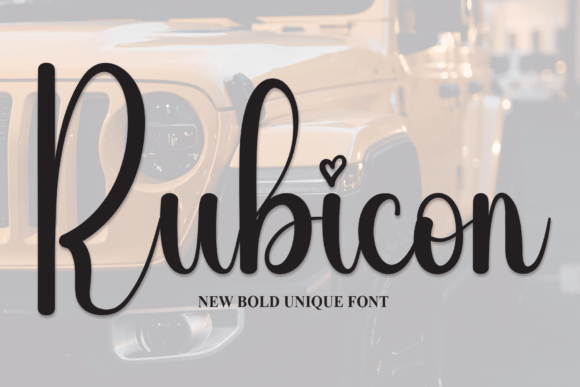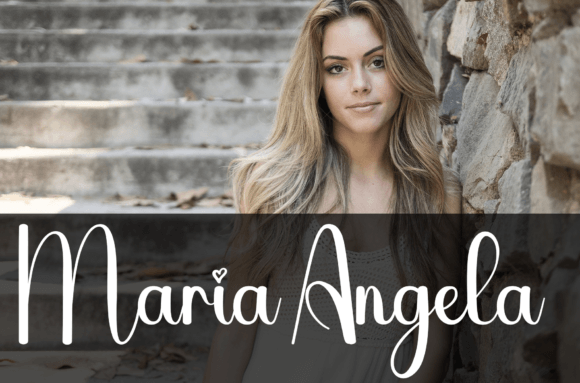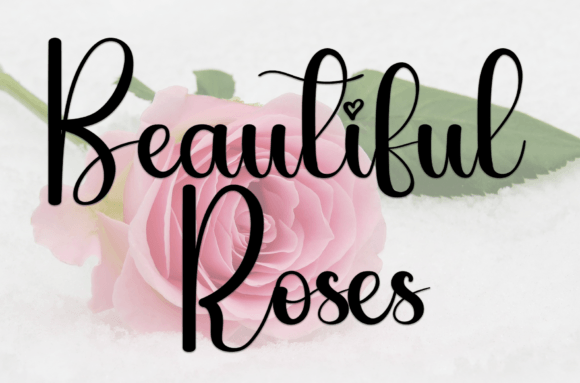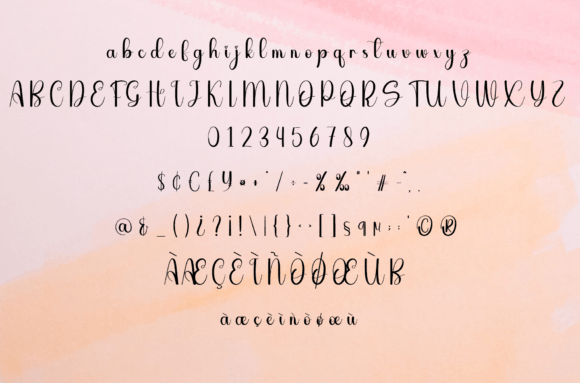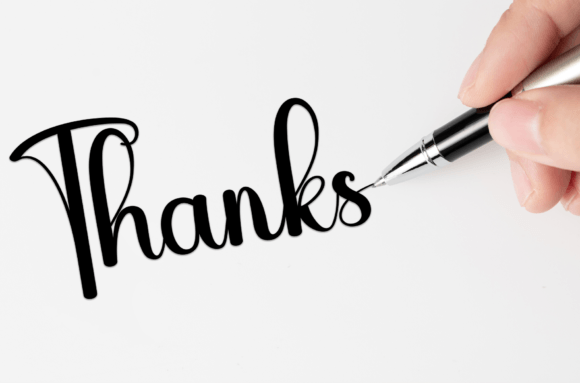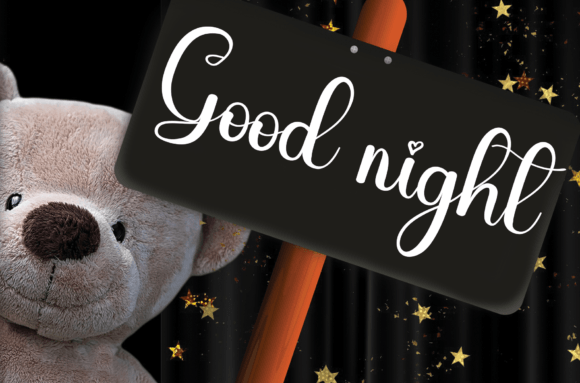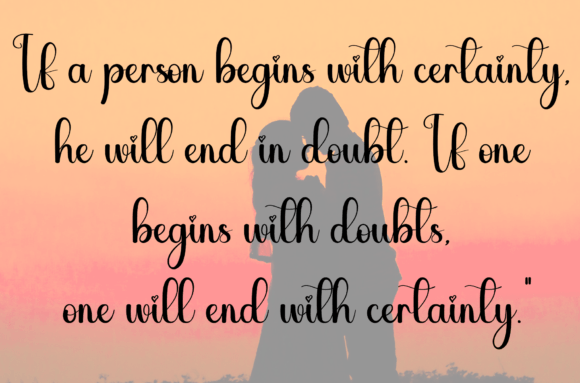
Rubicon Font
About Rubicon Font
Rubicon Font is a sweet and friendly handwritten typeface designed to make your projects feel warm and personal. With its relaxed and approachable style, this font adds a genuine and heartfelt touch to every design. Whether you are creating wedding invitations, greeting cards, or thoughtful branding, Rubicon is ready to make your work shine.
A Handwritten Look That Feels Personal
Rubicon Font has the look of true handwriting. Each letter flows naturally, as if written by hand with care. The rounded edges and casual curves give it a soft, approachable feel that connects with readers.
If you want your designs to feel more human and authentic, this font will help you achieve exactly that. It makes words feel sincere and warm.
Perfect for Celebrations and Special Moments
Rubicon Font is especially well-suited for projects that celebrate life’s most meaningful occasions:
• Wedding Invitations: Set a romantic tone with a font that feels personal and loving.
• Thank You Cards: Express gratitude with a warm, handwritten style.
• Birthday Greetings: Create playful and memorable designs for friends and family.
• Baby Showers: Add a sweet touch to invitations and decorations.
Rubicon brings a feeling of joy and closeness to every celebration.
Great for Branding and Digital Projects
While it’s wonderful for special occasions, Rubicon is also versatile enough for professional and digital use:
• Logos: Build a brand that feels approachable and human.
• Product Packaging: Make your labels and tags look handcrafted.
• Social Media Graphics: Share promotions, quotes, and announcements in a friendly voice.
• Web Design: Use Rubicon for headings, testimonials, or menus to add personality.
Because it stays legible in any size, Rubicon works beautifully for both print and screen.
Rubicon Font comes with uppercase and lowercase letters, numbers, and punctuation. The consistent letterforms create balance and harmony in every design.
Pair Rubicon with a clean sans-serif font for a modern contrast or combine it with soft colors for a gentle, charming look. The flexibility of this font means you can create exactly the feel you want.
Bring Warmth to Your Designs
Rubicon Font is more than just a typeface. It’s a way to make your designs feel personal, heartfelt, and full of life. Whether you are designing wedding stationery, crafting memorable cards, or developing a friendly brand identity, Rubicon will help you communicate your message beautifully.
With Rubicon in your font library, you’ll always have the perfect option for projects that call for sweetness and authenticity.